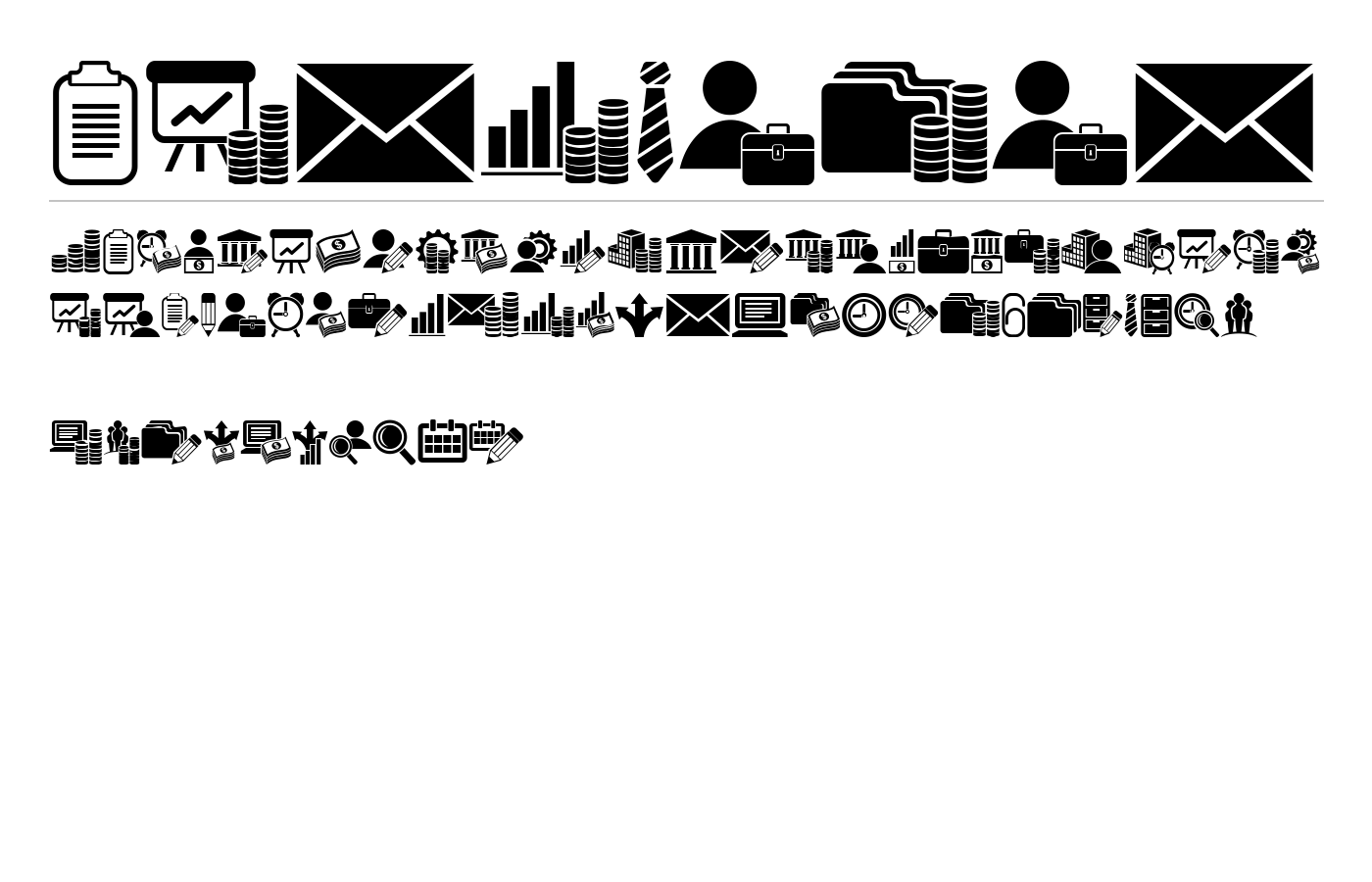
Bankwesen Font is a bold, solid icon font designed with clear, geometric shapes that convey professionalism and business efficiency. Its sharp, simplified symbols focusing on finance, office, and corporate themes make it ideal for use in branding, presentations, and digital interfaces where clarity and a modern, trustworthy feel are essential. This font works best in contexts like financial websites, business apps, and corporate communication materials, helping to easily communicate complex concepts with a clean and authoritative style.
Bankwesen Font
About Bankwesen Font
| Font family | Bankwesen Font |